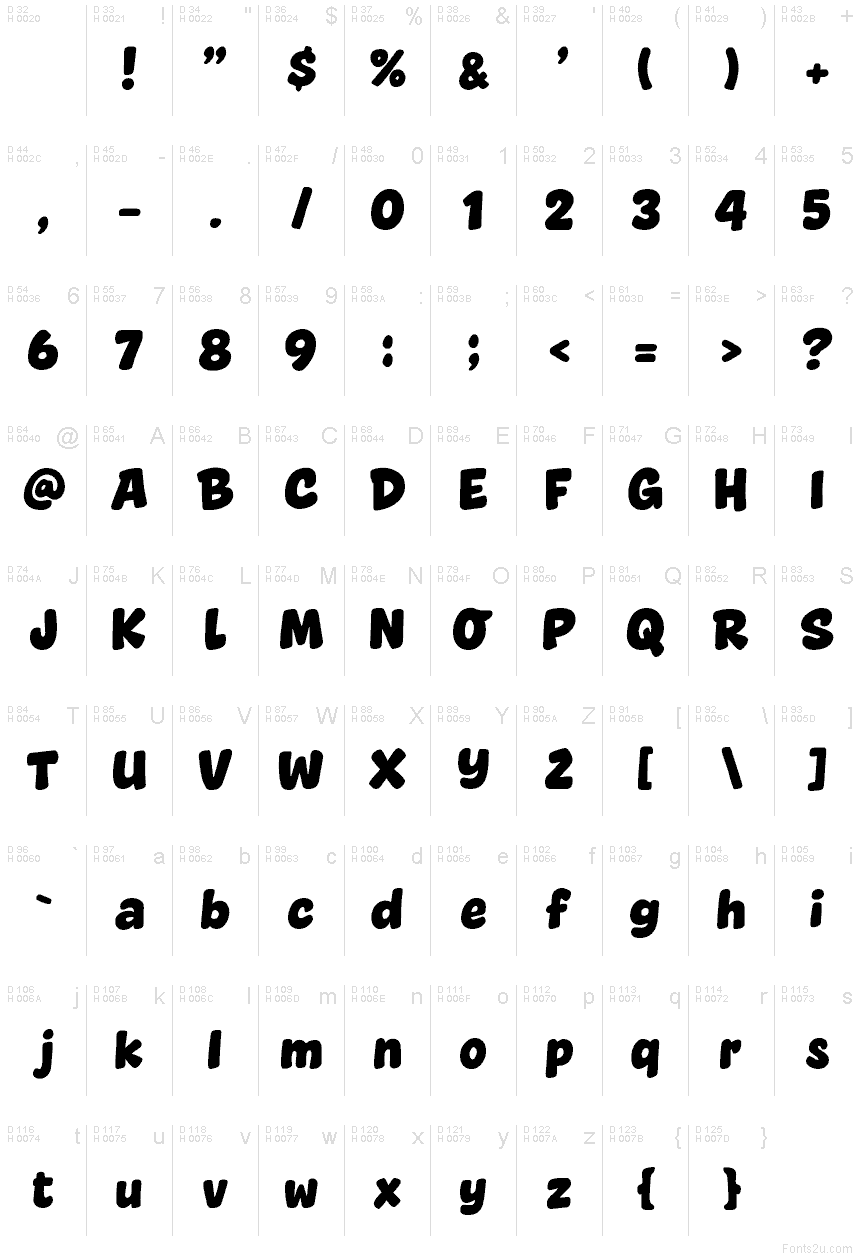
Vaseline Extra font by BlackFridayFont FMF is a free comic display typeface with a plush, jelly-like bounce. The letters feel cushioned and glossy, with rounded edges and chunky strokes that land like soft stamps-big, friendly, and a little mischievous. That buoyant rhythm keeps words lively without turning messy, giving headlines a bold grin that reads fast.
Using Vaseline Extra, you’ll get cheerful punch for kids’ products, slime or toy packaging, party posters, comic headers, YouTube thumbnails, and sticker sets. This free font shines on big, colorful layouts where its inky weight can soak in. For contrast, pair it with a light geometric sans in captions, and keep tracking snug to preserve its cuddly, bouncy flow.